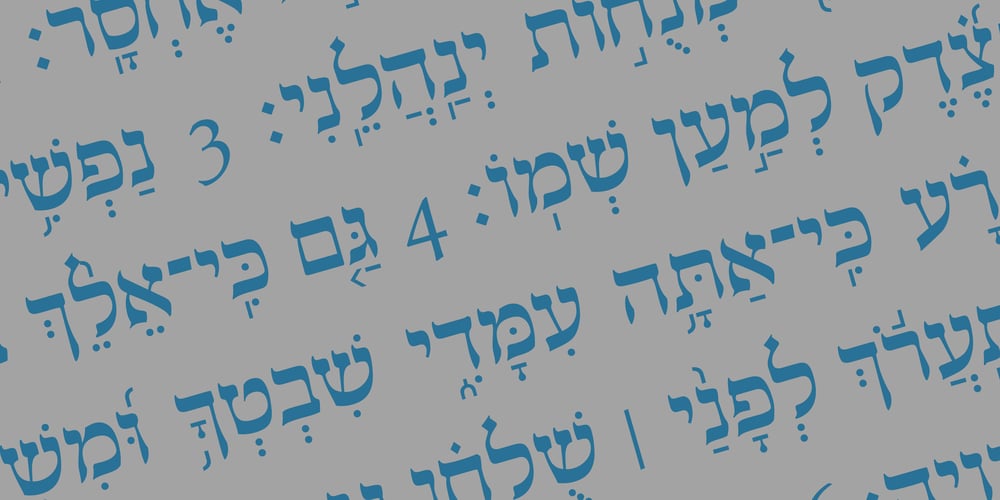
Hebrew Saphire Std
Hebrew Saphire Std font
Hebrew Saphire Std Font Family was designed by Sami Artur Mandelbaum and published by Samtype. Hebrew Saphire Std contains 2 styles and family package options. Beautiful font, good for posters, books, and folders.This is a complete font with all Nikud and also Shevana, Kamatz Katan, Dagesh Chazak, and Holam chaser.